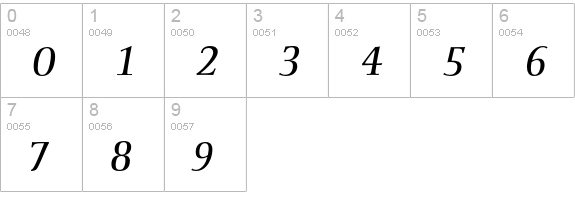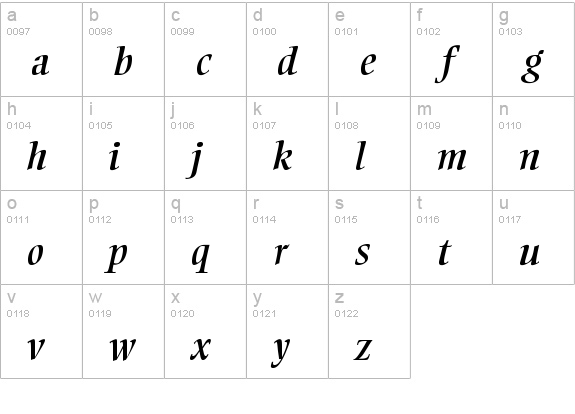
Ellington Italic Font Details
Ellington Italic is a distinctive, italic variant in the Ellington typeface family \xE2\x80\x94 well suited to design and typography projects.
Ellington Italic font is a stylish and elegant typeface that exudes sophistication and charm. With its sleek curves and flowing lines, this font is perfect for adding a touch of class to any design project. Whether you're creating invitations, logos, or signage, Ellington Italic will elevate your work to the next level. The italicized version of Ellington brings a sense of movement and dynamism to your text, making it perfect for emphasizing important words or phrases. The subtle slant of the letters adds a touch of drama without sacrificing readability, making it a versatile choice for a wide range of applications. Best of all, Ellington Italic font is available for free download at FontsMarket.com. This means you can add this elegant typeface to your collection without breaking the bank. So why wait? Elevate your designs today with the timeless beauty of Ellington Italic font.